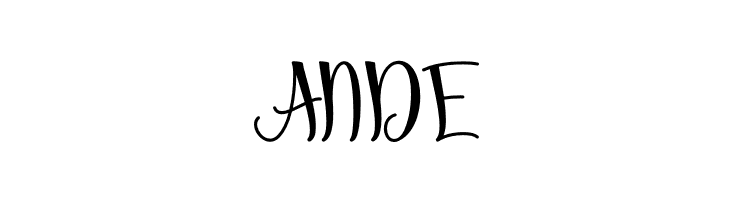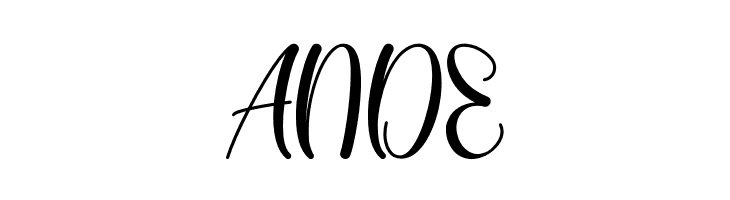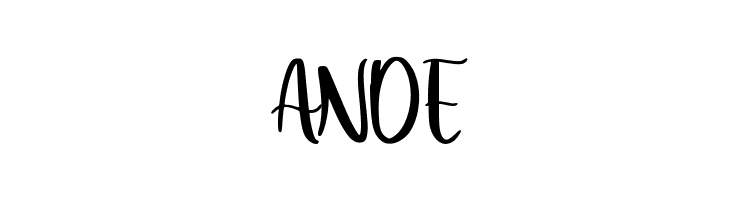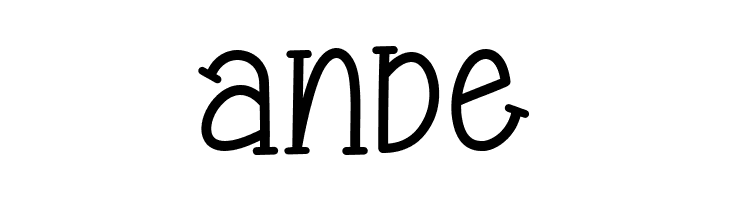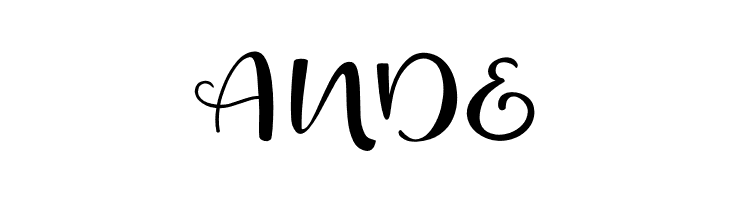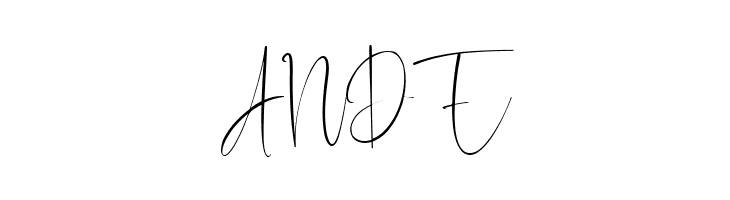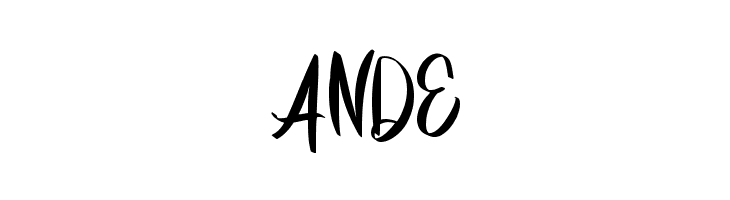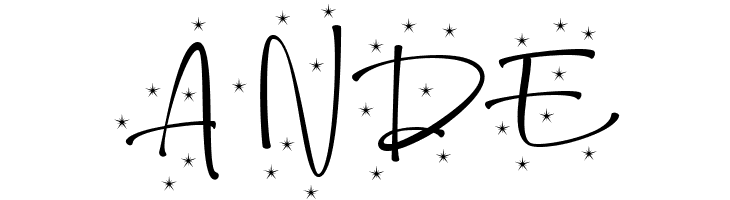
• Apple and Sugar
A playful and whimsical script font with flowing, interconnected letters.
• Apple Kids
A playful, bold font with rounded characters and a quirky bite design.
• Apple Tree
• Appocalypse
• Aqille Monogram - Personal Use
An elegant, decorative font with intricate floral embellishments.
• Aqua Script
An elegant script font with fluid, flowing lines and sophisticated curves.
• AquaColor
A bold, textured font with a hand-painted, artistic style.
• aRape Angular
A bold, angular font with a fragmented, graffiti-inspired style.
• Arax
• Arax-Barab